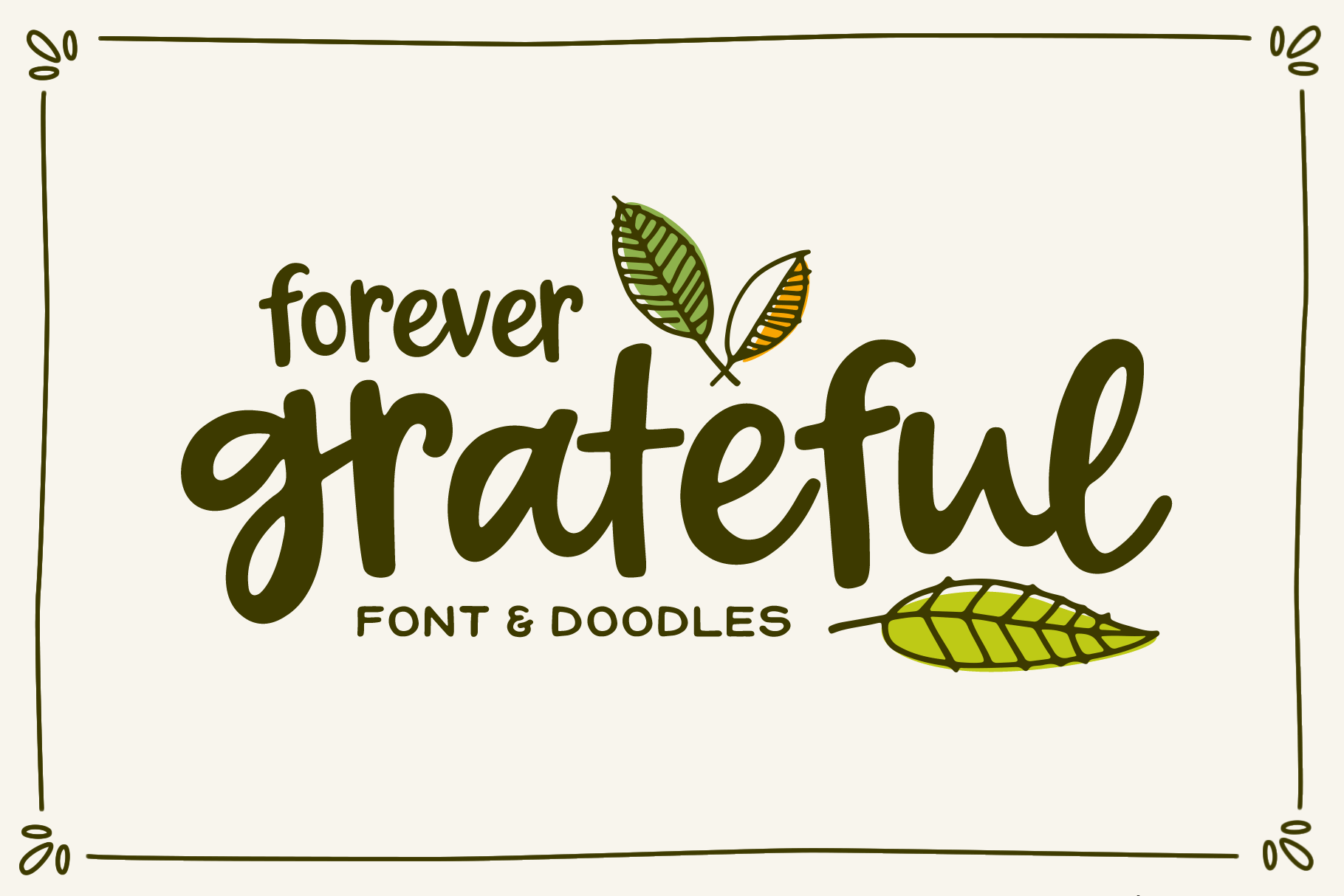
Forever Grateful Font & Doodles
Forever Grateful is a playful, hand-drawn script. It comes with a set of autumn themed doodles that can be accessed with upper and lowercase letters using Forever Grateful Doodles. English language only.